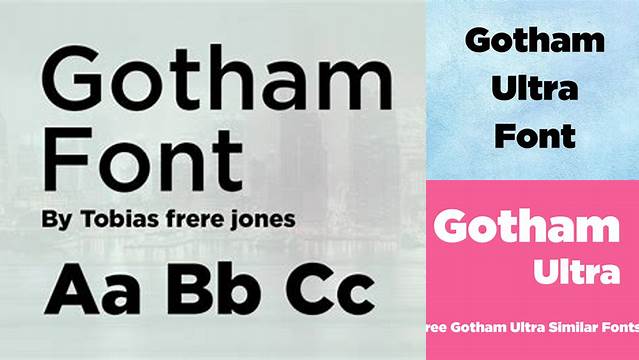
Are you on the hunt for a modern, bold, and ultra-stylish font to elevate your design projects? Look no further, guys! Gotham Ultra might just be the perfect choice for you. This font has gained immense popularity for its clean lines, geometric structure, and impactful presence. In this article, we'll dive deep into what makes Gotham Ultra so special, where you can find it for free on DaFont, and how to best utilize it in your designs. Let's get started!
What Makes Gotham Ultra So Special?
Gotham Ultra is more than just a font; it's a statement. Its strong, sans-serif characters exude confidence and modernity, making it ideal for a wide range of applications. From eye-catching headlines to impactful logos, Gotham Ultra commands attention and leaves a lasting impression. The font's clean and minimalist design ensures readability while maintaining a bold and contemporary aesthetic.
One of the key features that sets Gotham Ultra apart is its geometric construction. The characters are built upon simple geometric shapes, giving the font a sense of order and precision. This structured approach lends Gotham Ultra a timeless quality, ensuring it remains relevant and stylish for years to come. The even strokes and balanced proportions contribute to the font's overall legibility, making it suitable for both print and digital media. Whether you're designing a website, a poster, or a corporate brochure, Gotham Ultra will help you convey your message with clarity and impact.
Another reason for Gotham Ultra's popularity is its versatility. While it's often associated with bold headlines and display typography, it can also be used effectively in shorter paragraphs and body text. The font's clean design ensures that it remains legible even at smaller sizes, making it a practical choice for a variety of design needs. Gotham Ultra pairs well with a range of other fonts, from classic serifs to more contemporary sans-serifs, allowing you to create visually appealing and balanced compositions. Its ability to adapt to different design styles makes it a valuable asset in any designer's toolkit.
Furthermore, Gotham Ultra's widespread adoption in branding and advertising has solidified its status as a modern classic. Its use in high-profile campaigns has contributed to its recognition and appeal. Designers and businesses alike are drawn to its strong visual presence and its ability to communicate a sense of authority and sophistication. Whether you're aiming to create a sleek and professional image or a bold and attention-grabbing design, Gotham Ultra can help you achieve your goals. Its versatility and timeless appeal make it a reliable choice for a wide range of projects.
In addition to its aesthetic qualities, Gotham Ultra also boasts excellent technical performance. The font is well-crafted and optimized for both print and digital use. Its clean outlines and consistent spacing ensure that it renders beautifully across different platforms and devices. This technical excellence contributes to the font's overall usability and makes it a pleasure to work with. Whether you're a seasoned designer or just starting out, you'll appreciate the ease and flexibility that Gotham Ultra offers. Its reliability and performance make it a valuable tool for creating professional and polished designs.
In conclusion, Gotham Ultra's blend of modern aesthetics, geometric precision, and versatile application makes it a standout choice for designers. Its ability to command attention while maintaining readability makes it suitable for everything from headlines to body text. The font's widespread popularity and technical excellence further solidify its position as a design staple. If you're looking for a font that will add a touch of sophistication and impact to your projects, Gotham Ultra is definitely worth considering.
Now, let's get to the exciting part: where can you snag this fantastic font for free? DaFont, a popular online resource for free fonts, is a great place to start your search. However, before we dive into the specifics, it's crucial to understand the licensing implications when downloading fonts from websites like DaFont.
When searching on DaFont, you might come across fonts that resemble Gotham Ultra. These are often created by independent designers and offered under various licenses. If you find a font that you like, be sure to check the license agreement to ensure that it meets your needs. Look for terms like "free for personal use" or "free for commercial use." If the license is unclear or doesn't explicitly grant the rights you need, it's best to err on the side of caution and seek an alternative or purchase a commercial license.
To search for Gotham-like fonts on DaFont, you can use keywords such as "geometric sans-serif," "modern sans-serif," or "bold sans-serif." These terms will help you narrow down your search and find fonts that share similar characteristics with Gotham Ultra. You can also browse through the various categories on DaFont, such as "Sans Serif" and "Techno," to discover a wider range of options. Remember to always prioritize fonts with clear and permissive licenses to avoid any copyright infringement issues.
In conclusion, Gotham Ultra is a fantastic font that can bring a modern and bold touch to your projects. Remember to be mindful of licensing when downloading fonts, and use Gotham Ultra thoughtfully in your designs for the best impact.